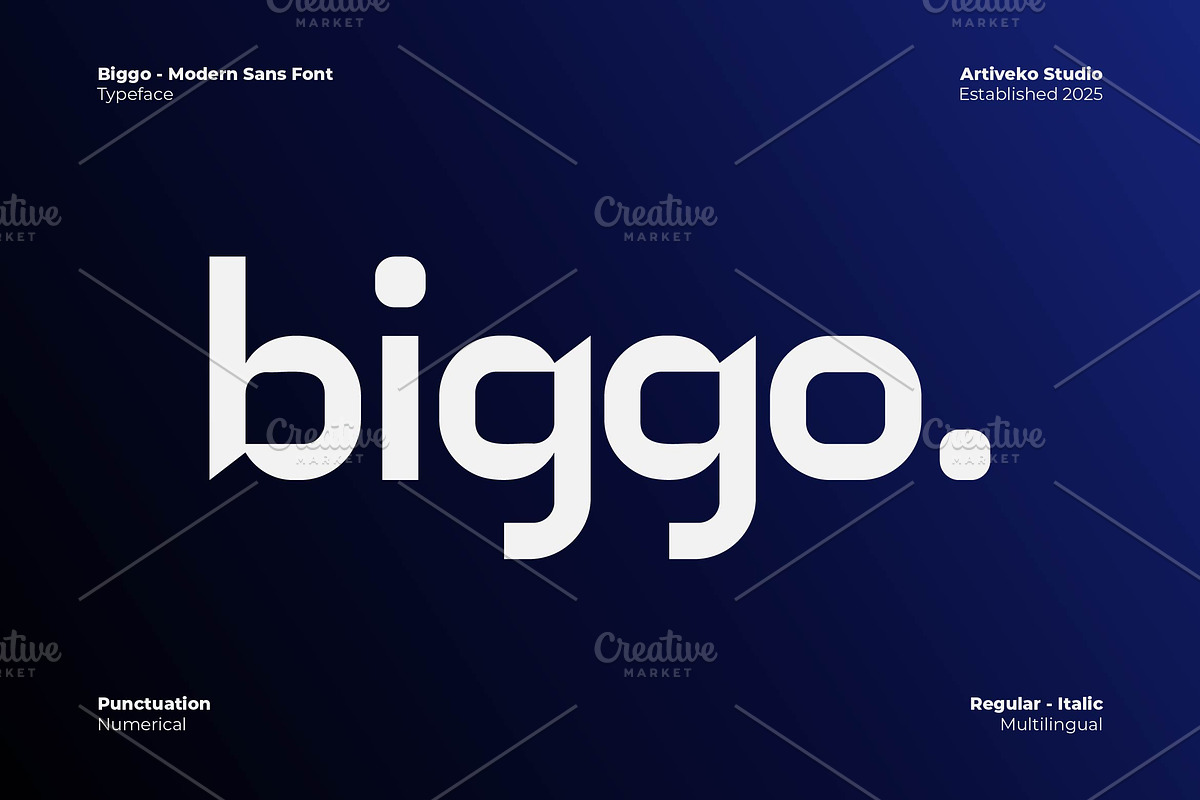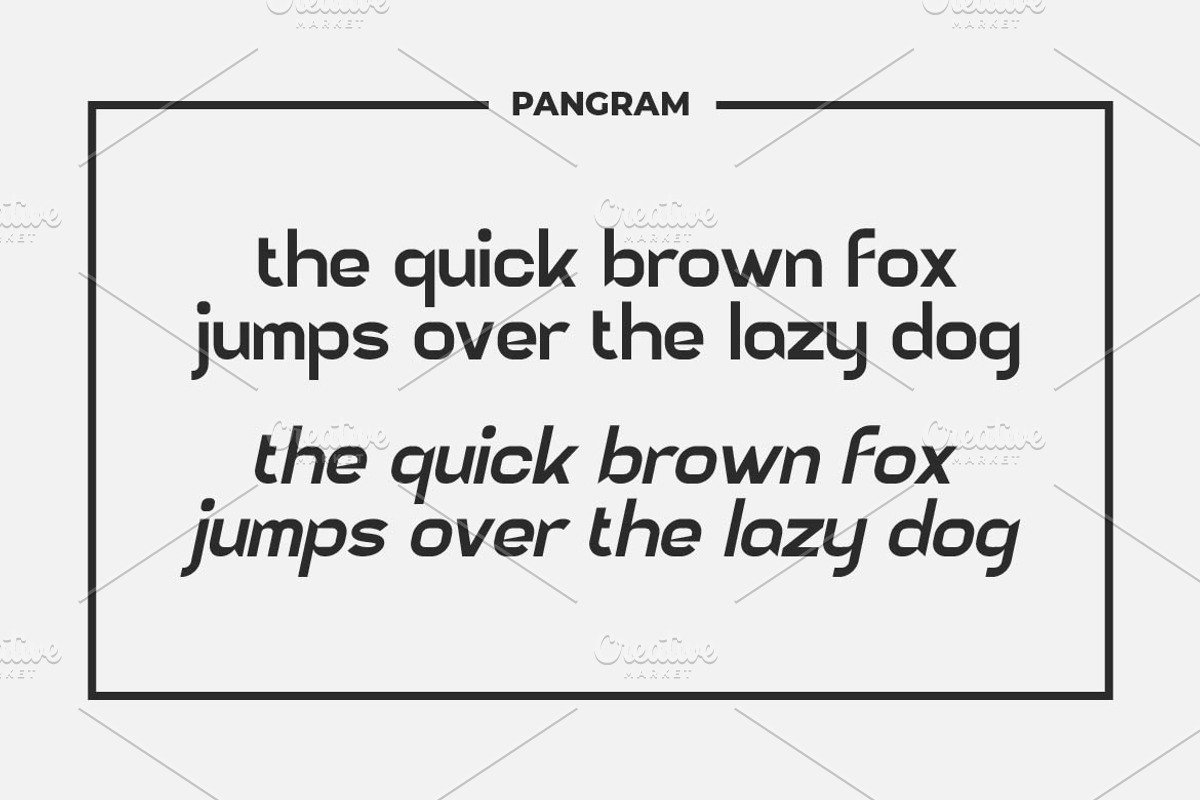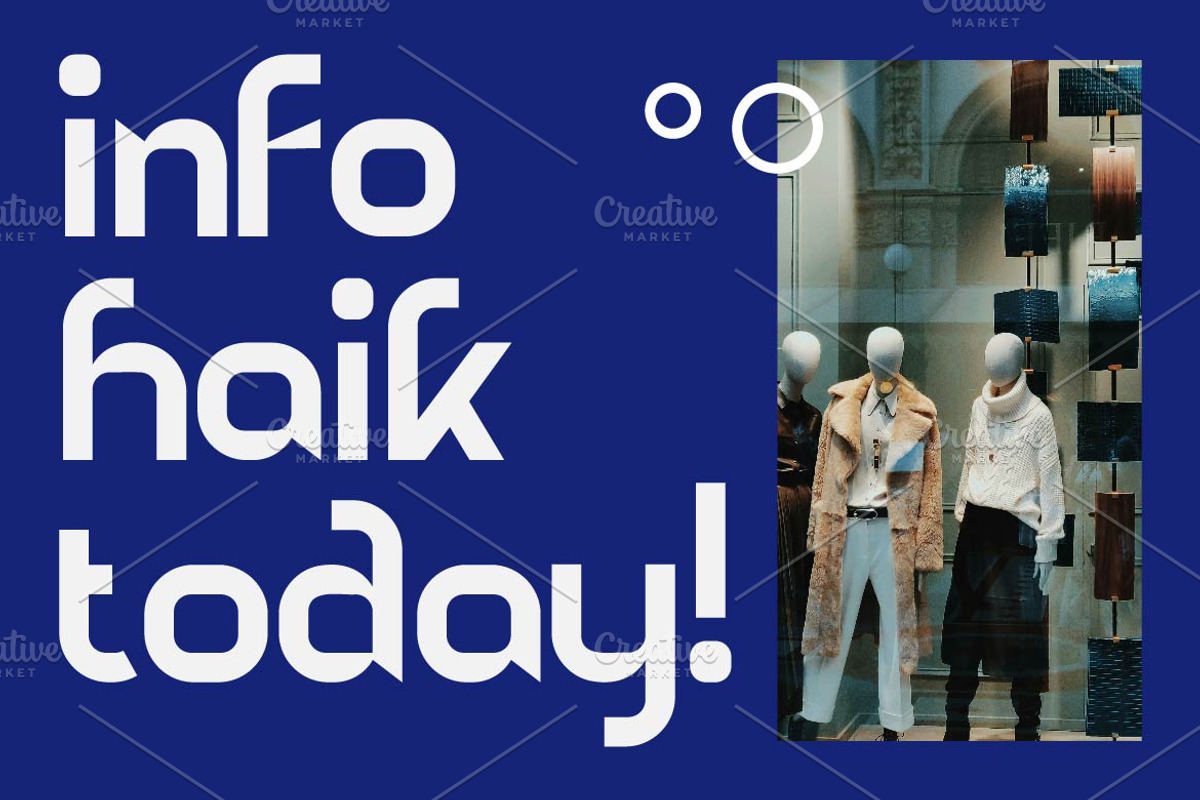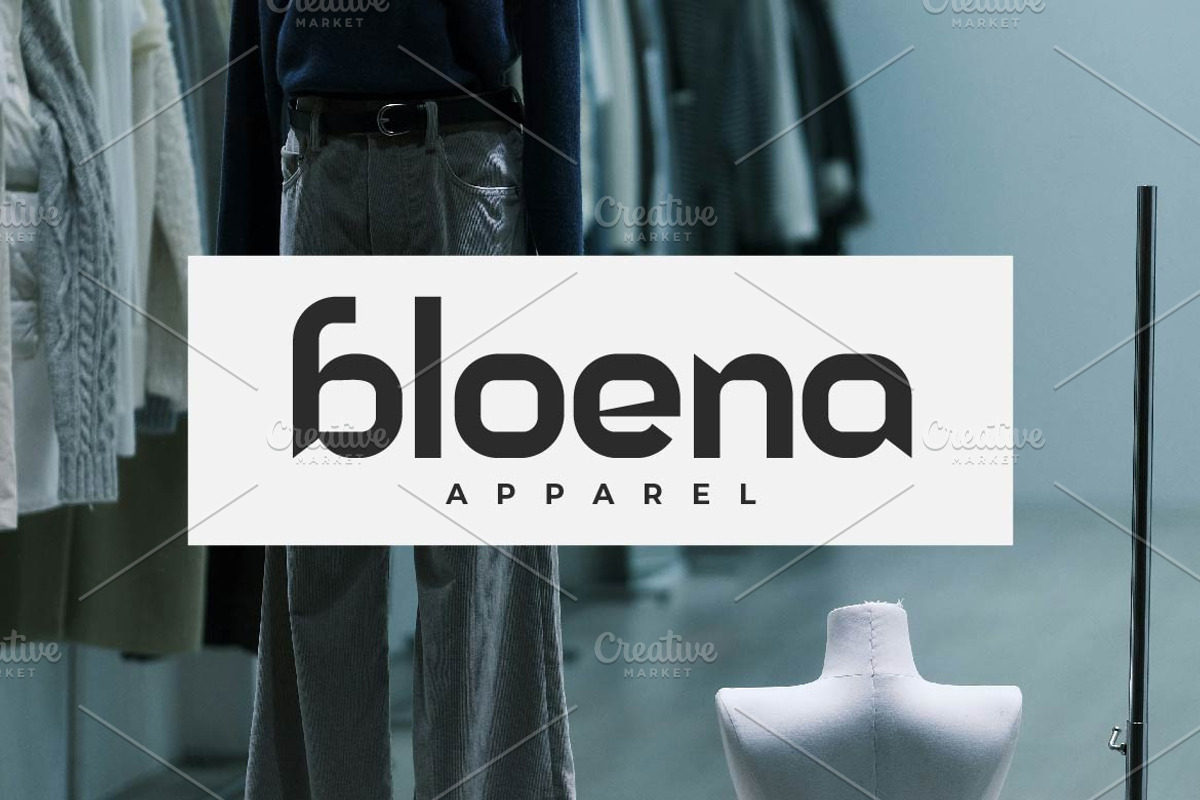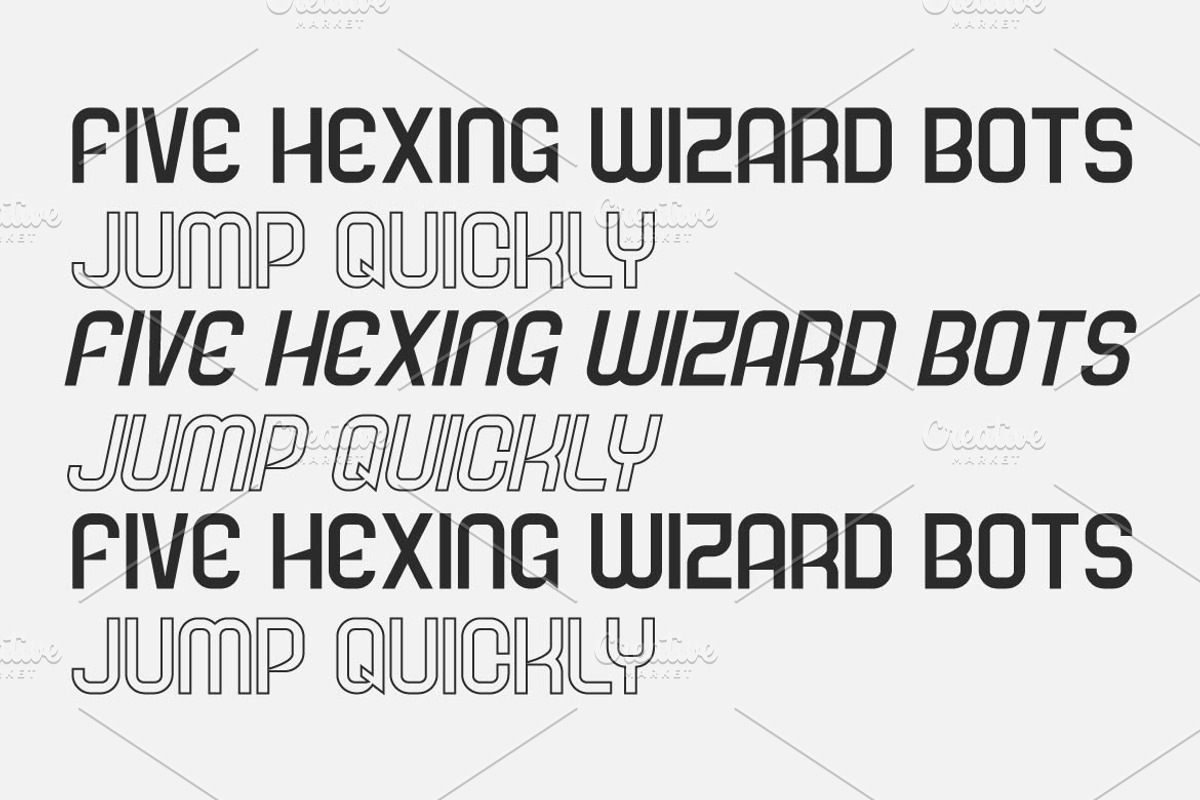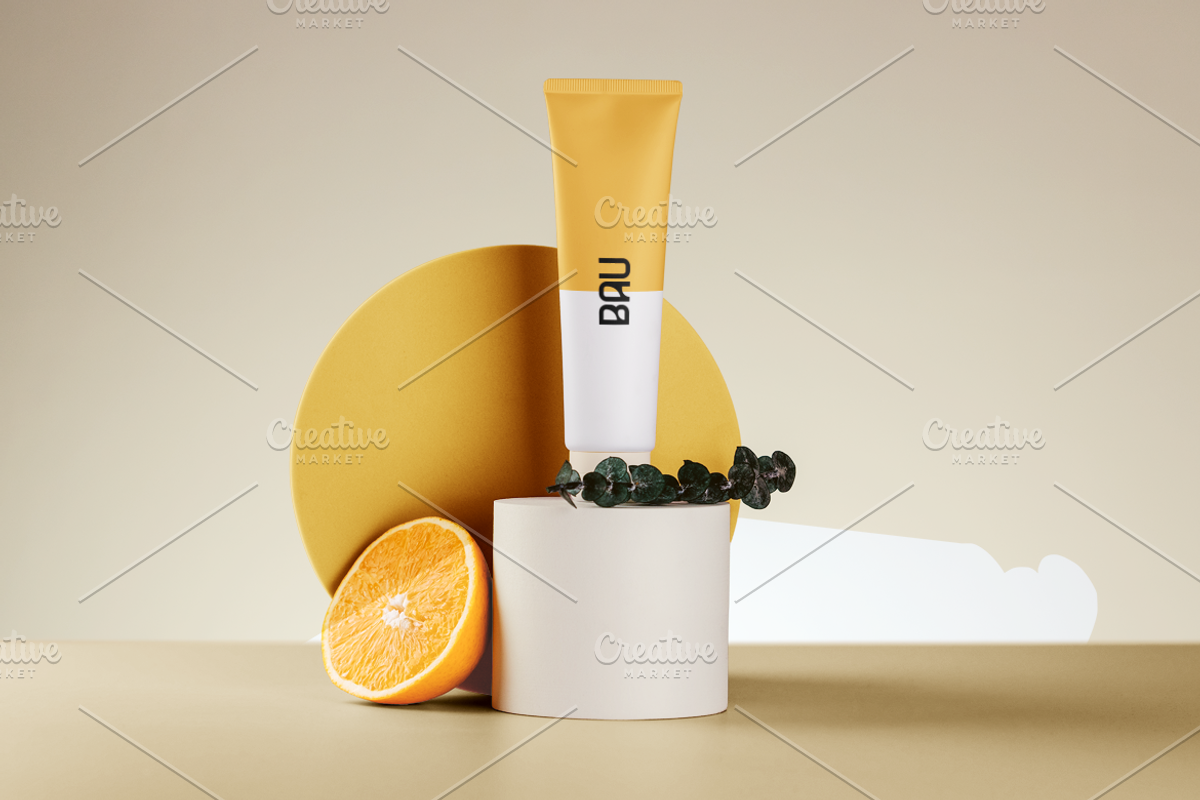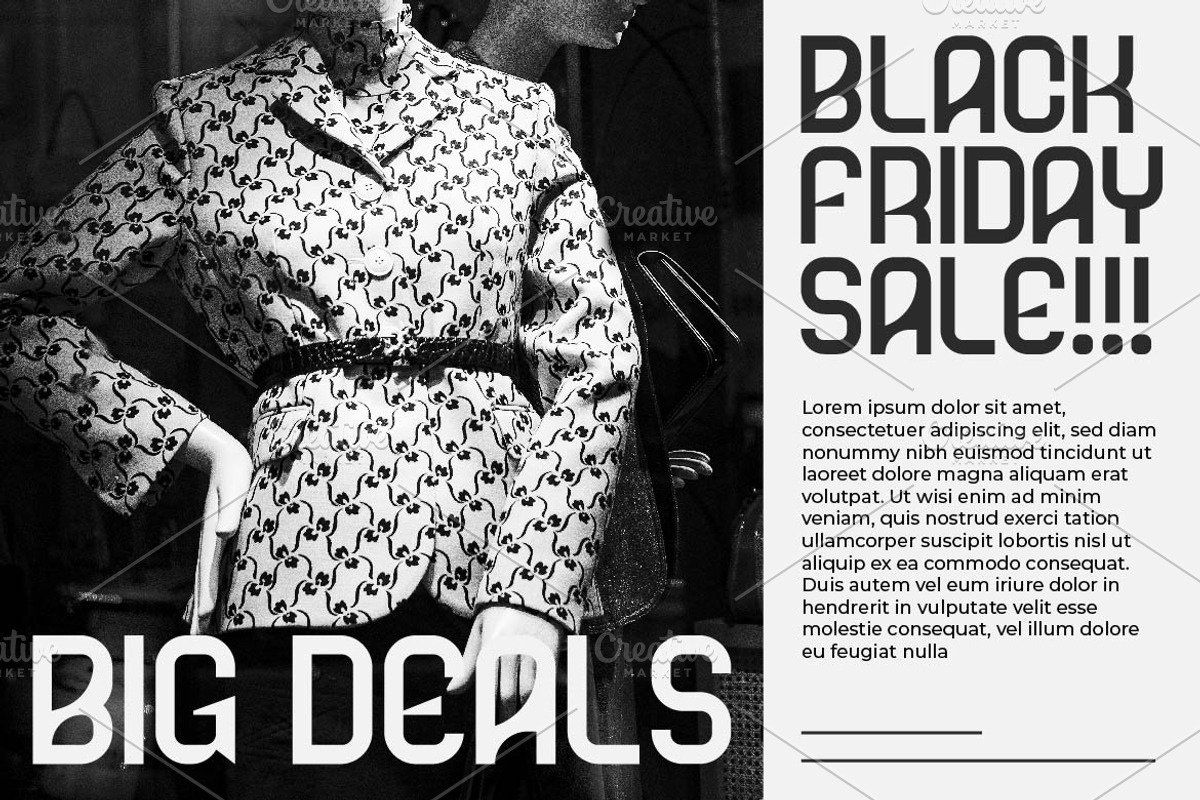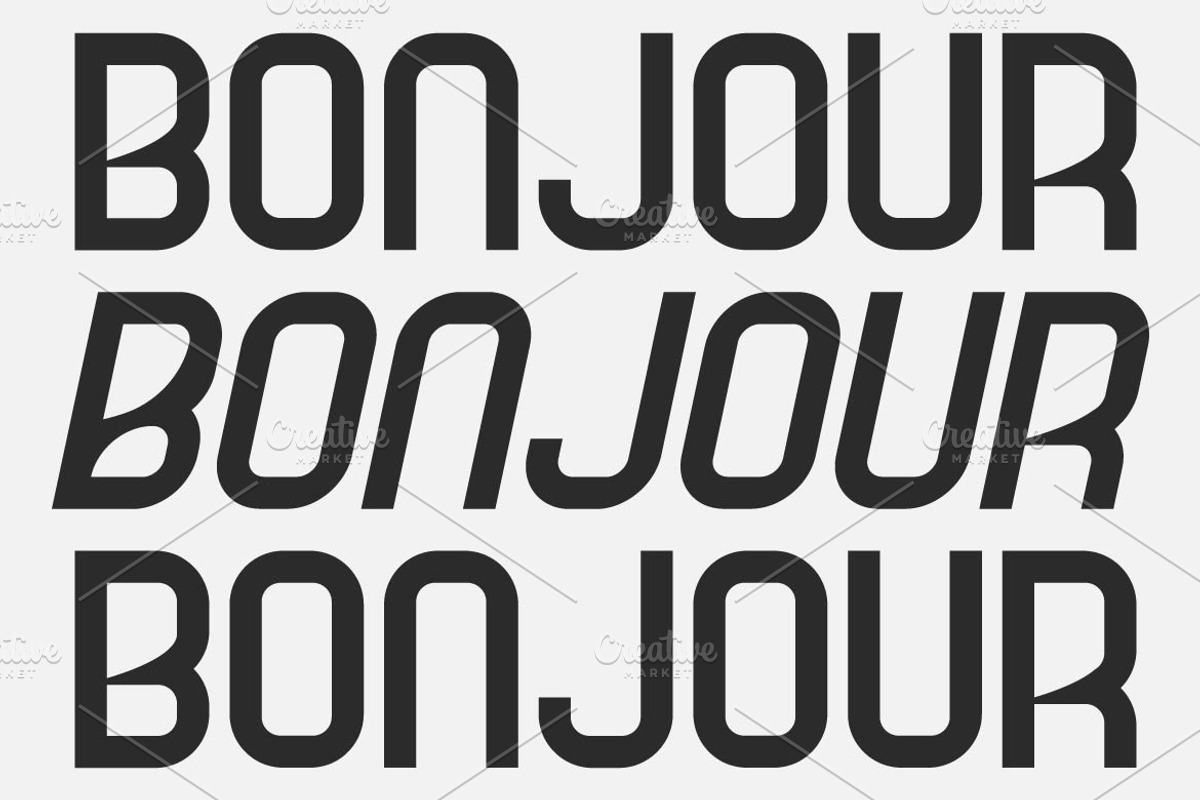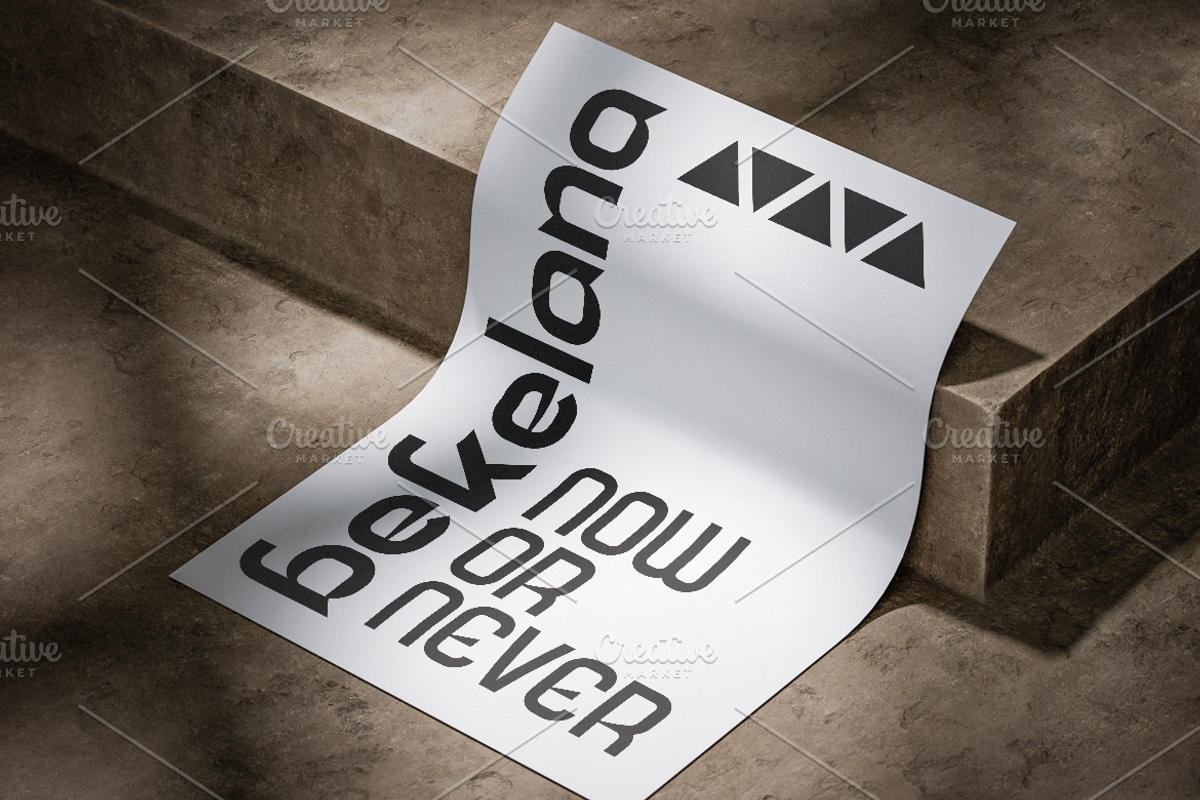
Biggo Modern Sans Font
Biggo is a bold modern sans serif font featuring strong, clean letterforms that exude confidence and versatility. Perfect for branding, headlines, posters, and digital design, Biggo delivers a sleek and contemporary aesthetic with a professional touch. With multilingual support, ligatures, and alternates, Biggo is designed for clarity and impact, making it an ideal choice for projects that demand a modern and powerful typeface.